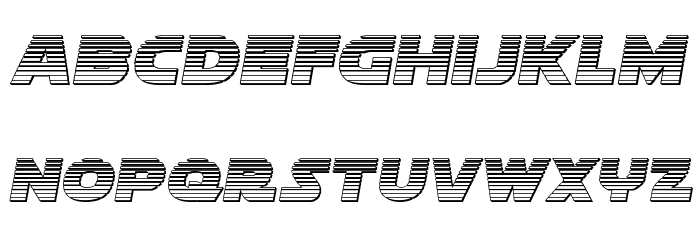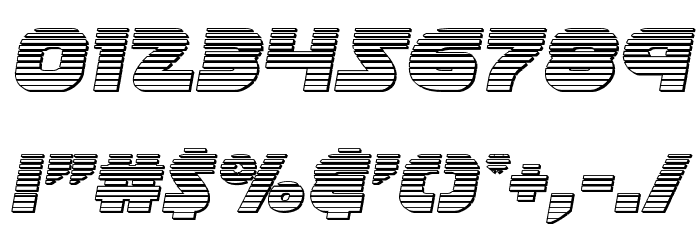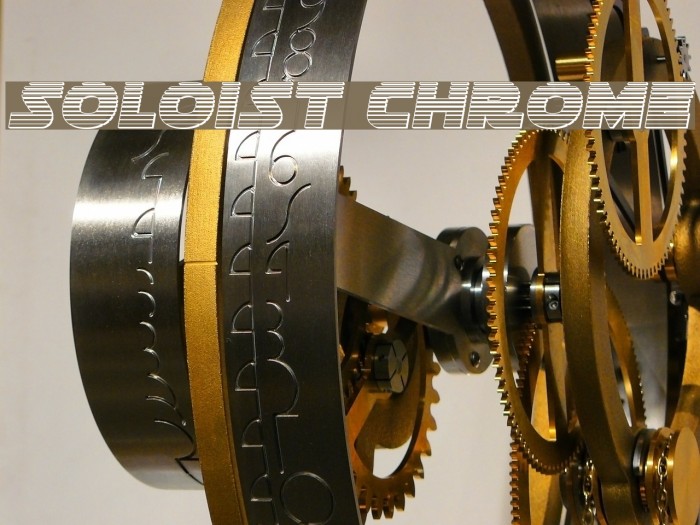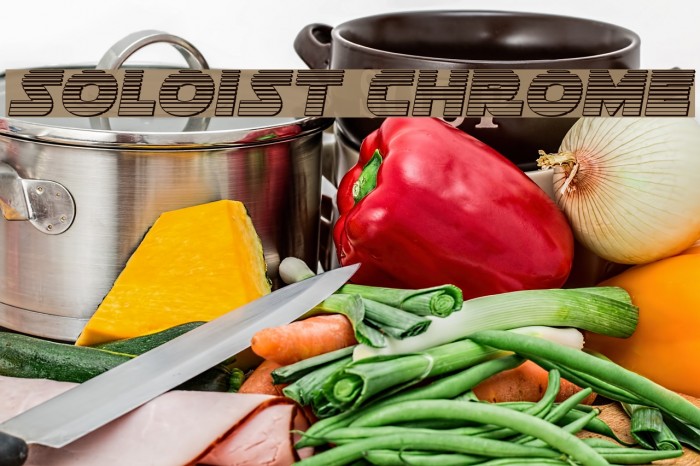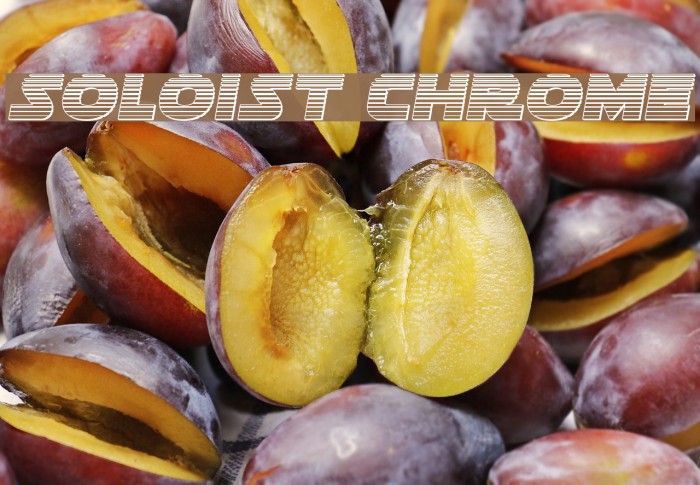
Soloist Chrome Font
This font features a bold, decorative style with a unique striped pattern running horizontally across each character. The uppercase and lowercase letters, as well as numbers and special characters, maintain a consistent design that emphasizes a modern, futuristic aesthetic. The lines within each character create a sense of movement and depth, making it ideal for eye-catching designs. The font's geometric structure and clean lines contribute to its distinct appearance, making it suitable for projects that require a strong visual impact.
A bold, decorative font with a striped, futuristic design.
- Proposed Projects: Ideal for posters, logos, album covers, and any project needing a bold, modern look.